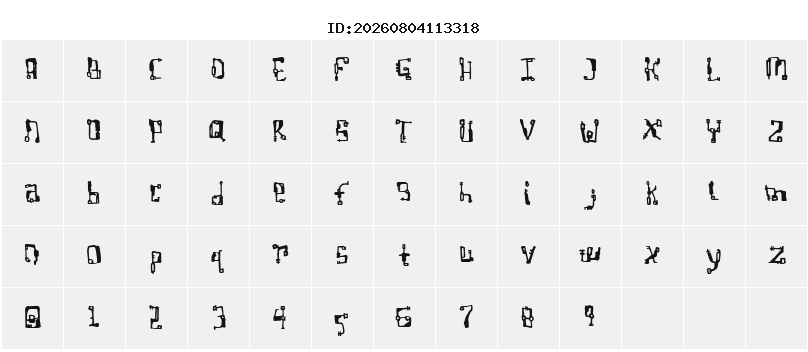
• Font Name: Non Blocking Socket
• Designer: Tom Murphy 7
• Manufacturer: [ Divide By Zero ] Fonts
• Description: Created by Tom Murphy 7. Complicated robotic Sputnik font. Looks like satellites. Lots of accented characters for my foreign friends (no russian, sorry!)... [Divide By Zero] fonts: http://fonts.tom7.com/